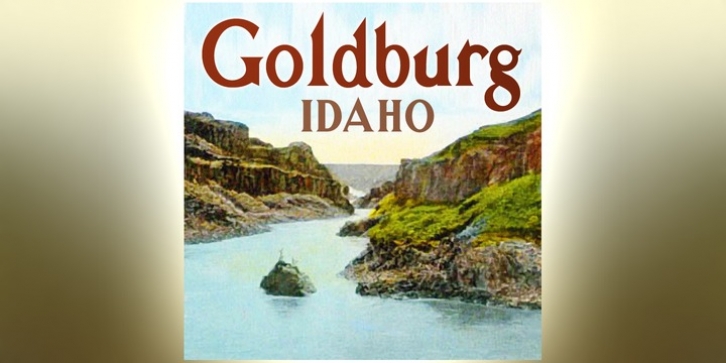
Goldburg downloadDesigner: Ray Larabie
Publisher: Typodermic
Goldburg is based on the lettering found on Idaho historical Markers. The lettering was designed by George Bowditch, in the late 1950s based on unknown historical sources.